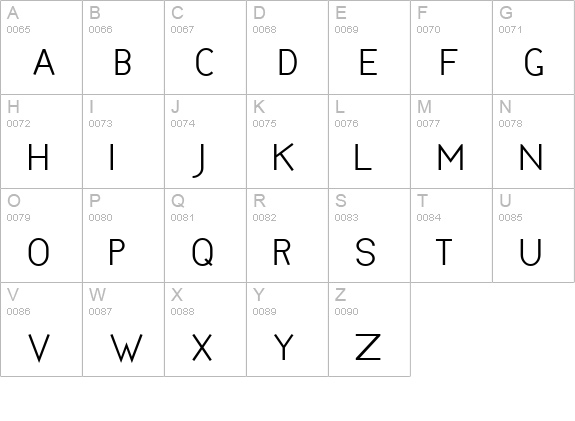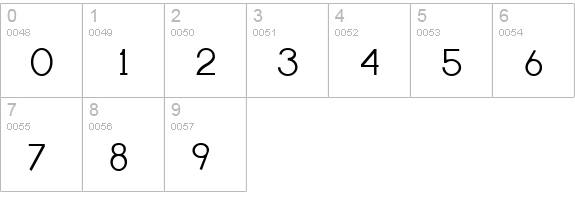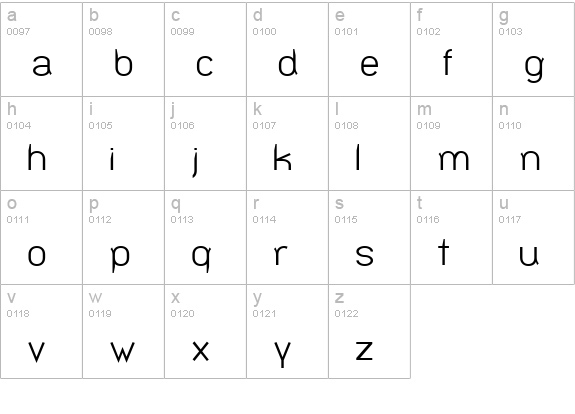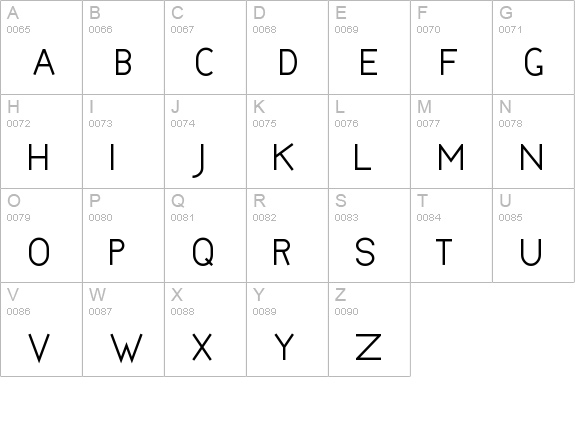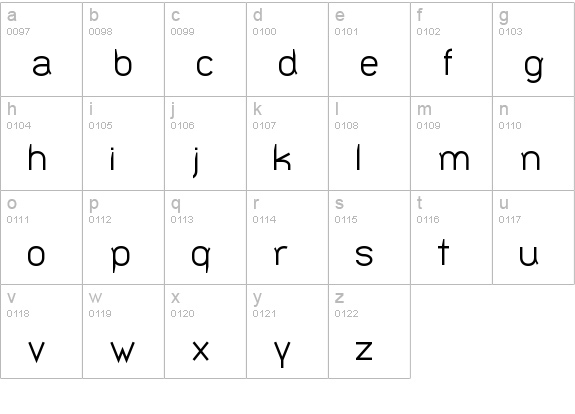
Bernur Normal Font Details
Bernur Normal is the standard, neutral variant in the Bernur typeface family \xE2\x80\x94 well suited to general body text, paragraphs, and standard typographic work.
Introducing Bernur Normal, a versatile and elegant font that effortlessly combines classic elements with a modern twist. This font is a true representation of timeless beauty, making it perfect for a wide range of design projects. With its clean lines and balanced proportions, Bernur Normal exudes professionalism and sophistication. Its smooth curves and refined details add a touch of elegance to any text, making it ideal for branding, logo design, invitations, and much more. One of the standout features of Bernur Normal is its versatility. This font seamlessly adapts to various design styles, whether it be for a luxurious and high-end look or a more minimalistic and contemporary approach. The wide range of available weights and styles allow for endless creative possibilities and ensure that every project can be perfectly tailored to your vision. But what truly sets Bernur Normal apart is the fact that it is free. Yes, you read that right – this exceptional font can be downloaded for free at FontsMarket.com. With just a few simple clicks, you can add this stunning font to your collection and start incorporating it into your designs right away. Whether you are a professional designer or a beginner just starting out, Bernur Normal is a must-have font that will elevate your creations to new heights. Its timeless appeal and free availability make it a valuable asset that you won't want to miss out on. So why wait? Head over to FontsMarket.com and get your hands on Bernur Normal today!